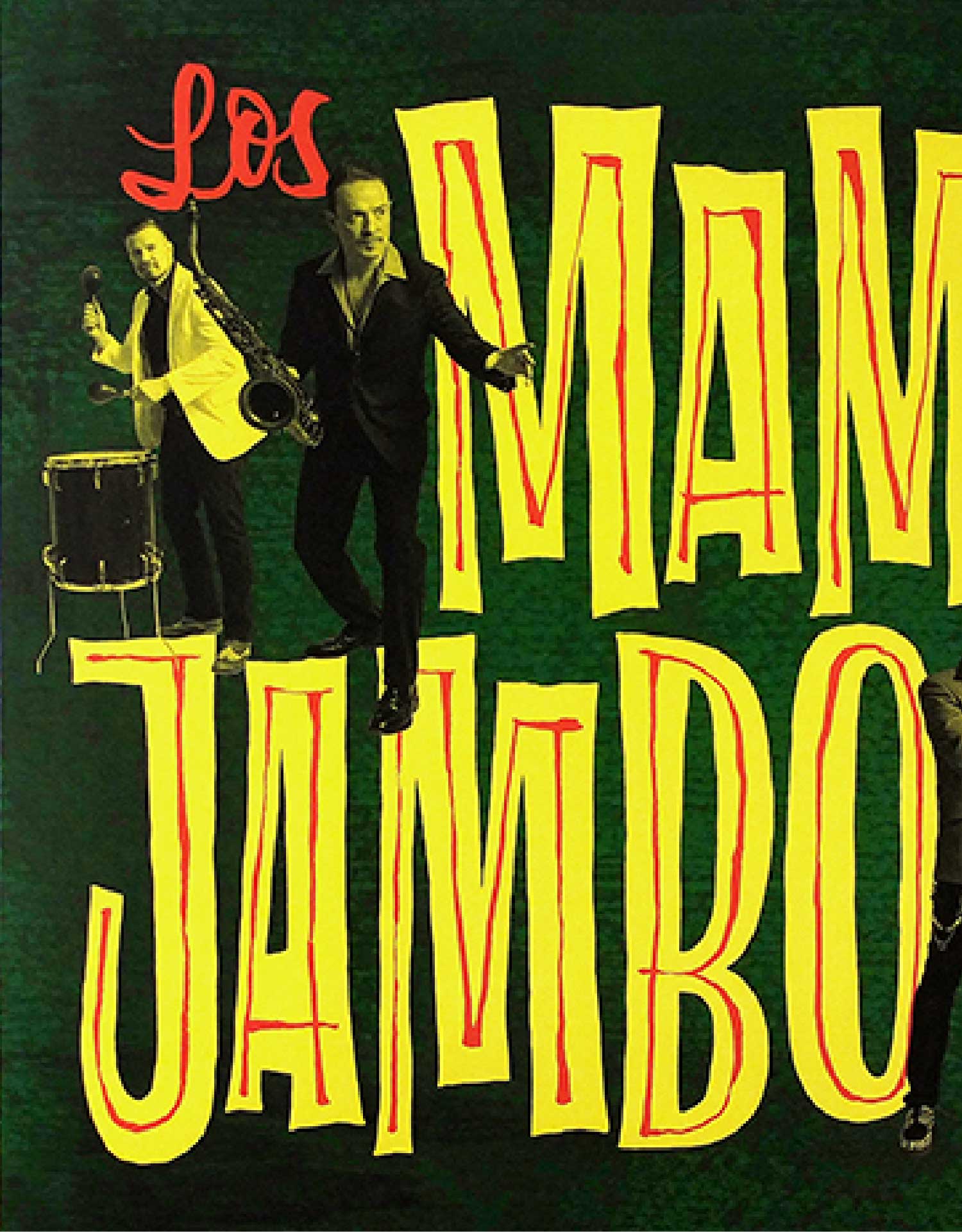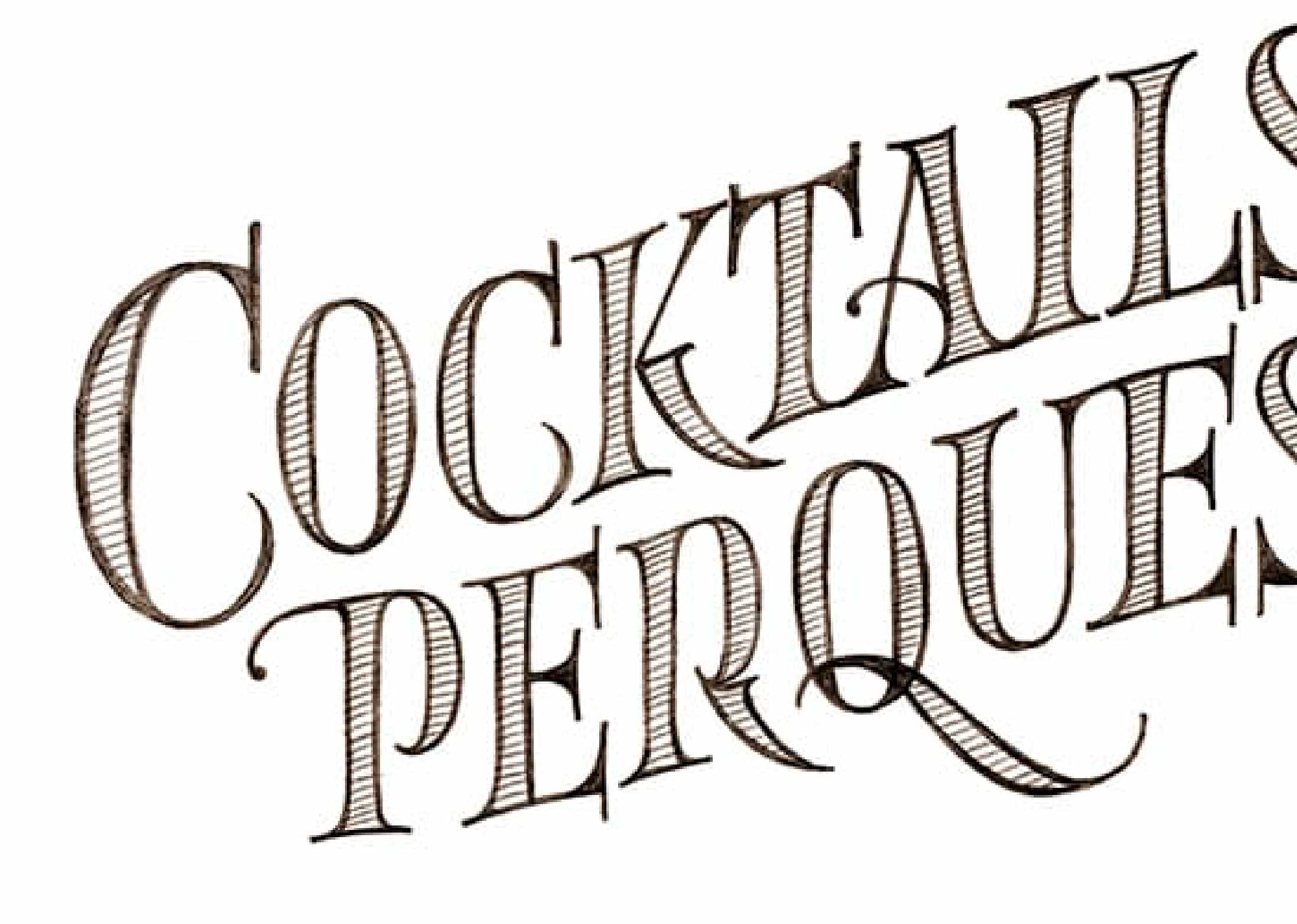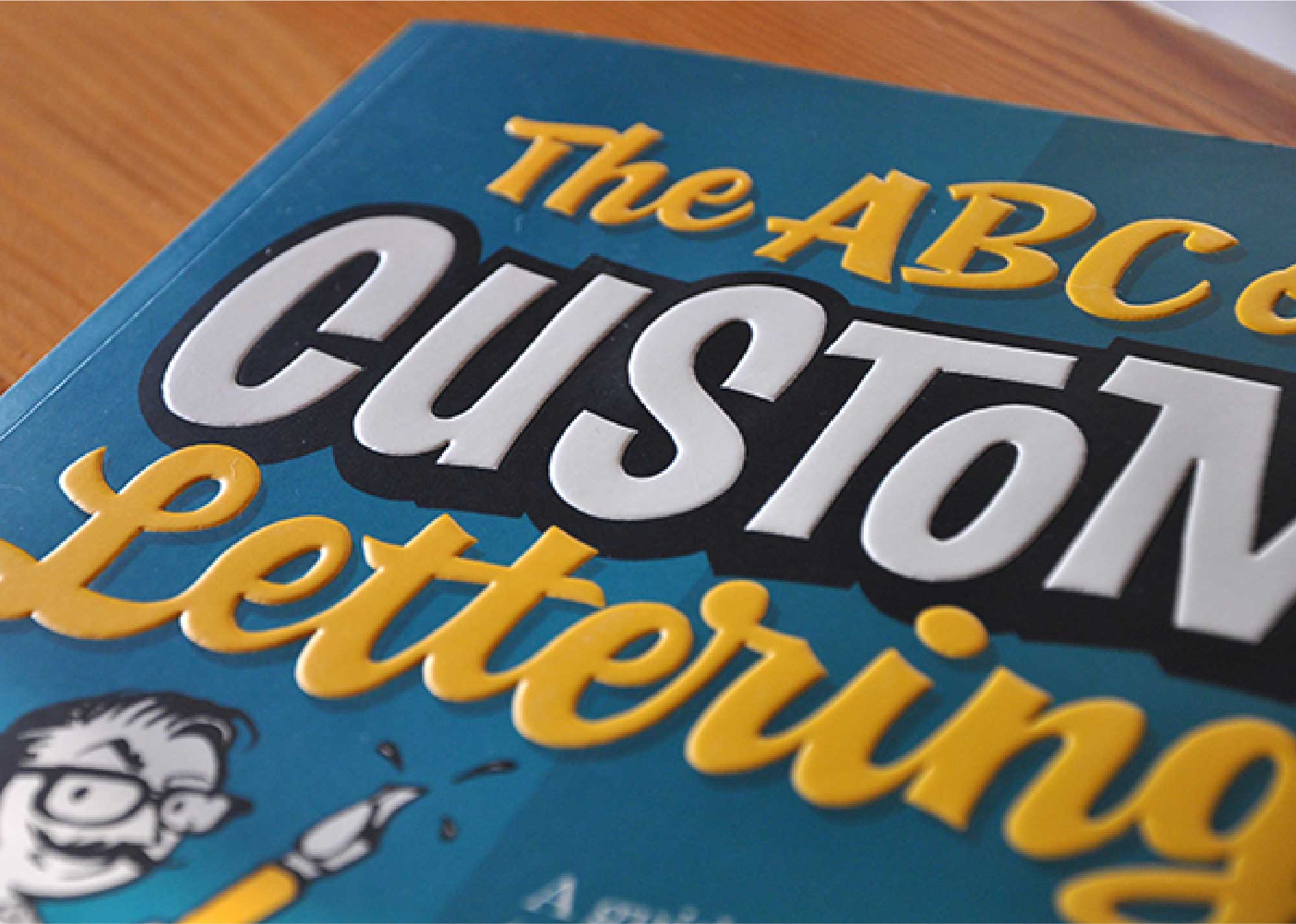
Ivan Castro is a graphic designer based in Barcelona, Spain, who specializes in calligraphy, lettering, and typography. His work involves everything from advertising to editorial, and from packaging to logo design and gig posters. Although Ivan claims to have no specific style, one could say that he has a strong respect for the history of popular culture. He has been working in the field for 20 years, and has been teaching calligraphy and lettering for about 20 years in the main design schools in Barcelona, such as Elisava, BAU or Barcelona Caligrafia, a school that co-directs with Oriol Miró. He travels frequently, holding workshops and giving lectures at design festivals and conferences. He’s the author of The ABC of Custom Lettering, Lettering to the Max, and two lettering online courses in the Spanish platform Domestika.